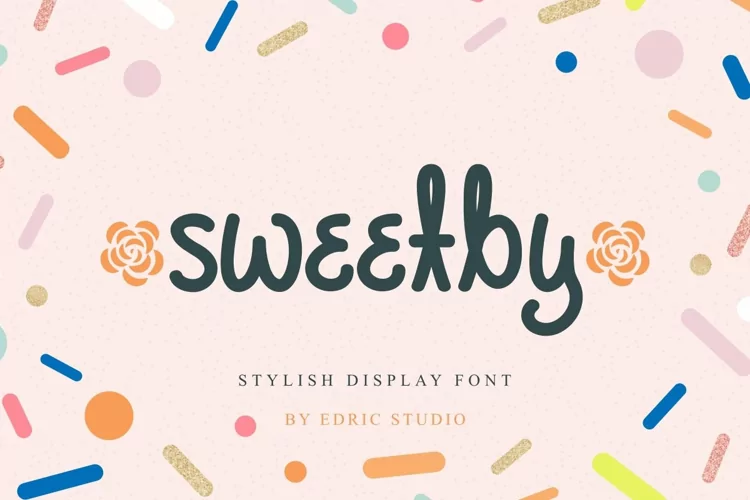
Sweetby
Sweetby Font is a playful stylish display font created by EdricStudio. This font is inspired by playful children’s writing which is still easy to read and will be suitable for any industry, such as accessories, art gallery, boutique, cosmetic, fashion, handicraft, homeware, kids stuff, printing, publishing, and anything else that needs a sweet look.
Sweetby Font comes with a full set of Uppercase and Lowercase Basic Characters, Number, a large range of Punctuation and Symbol. This font also has a swoosh character that makes it look perfect. Sweetby Font will be great for any projects (with extended lic3nse) including : label, magazine catalog, packaging design, quote, screen print, sticker, title, etc.